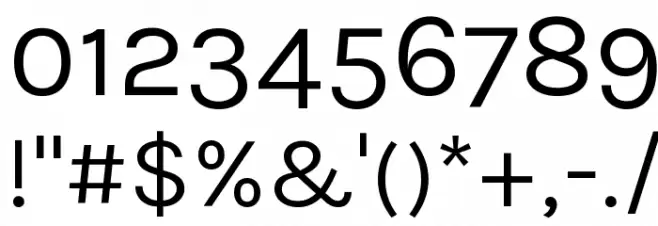
Karla Tamil Upright Font
Karla Tamil Upright Description
This font is a clean and modern sans-serif typeface with a straightforward and minimalist design. It features uniform stroke widths and a balanced structure, making it highly legible and versatile. The characters are well-proportioned with a slightly rounded appearance, contributing to a friendly and approachable feel. The numerals and special characters are consistent with the overall style, ensuring readability across various applications. Its simplicity and clarity make it suitable for both digital and print media.
A clean, modern sans-serif typeface with uniform stroke widths and high legibility from Uncategorized fonts.